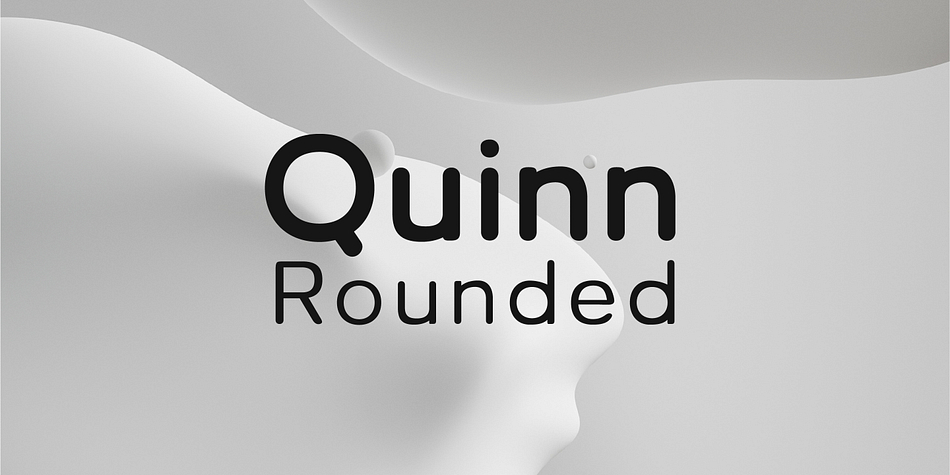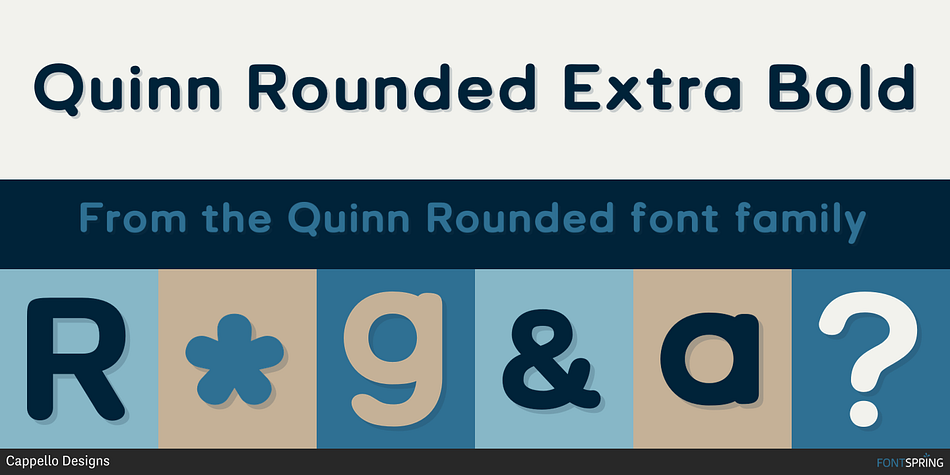
Quinn Rounded Extra Bold
Designed by Cassandra Cappello, Quinn Rounded is a sans serif font family. This typeface has ten styles and was published by Cappello Designs.
Quinn Rounded is a modern, minimal, bubbly, and rounded sans serif typeface. It’s a rounded, grotesk sans-serif typeface. These typefaces originated in the 20th century, and are strongly associated with swiss style typographic design. The rounded style takes it into the contemporary and gives it a distinct personality from its sister font, Quinn.
It was designed to be used for both headers and body copy. This font family includes all Latin characters (including accents), numbers, special characters, and punctuation.